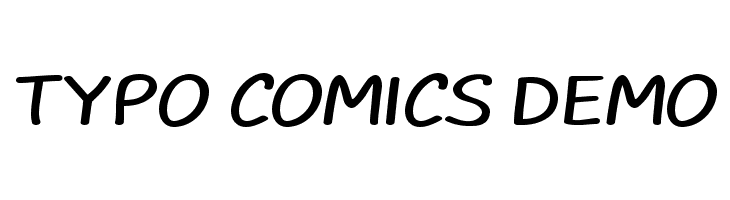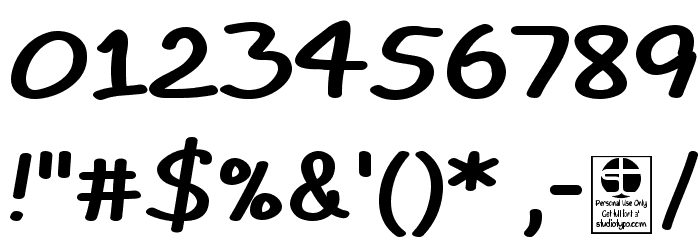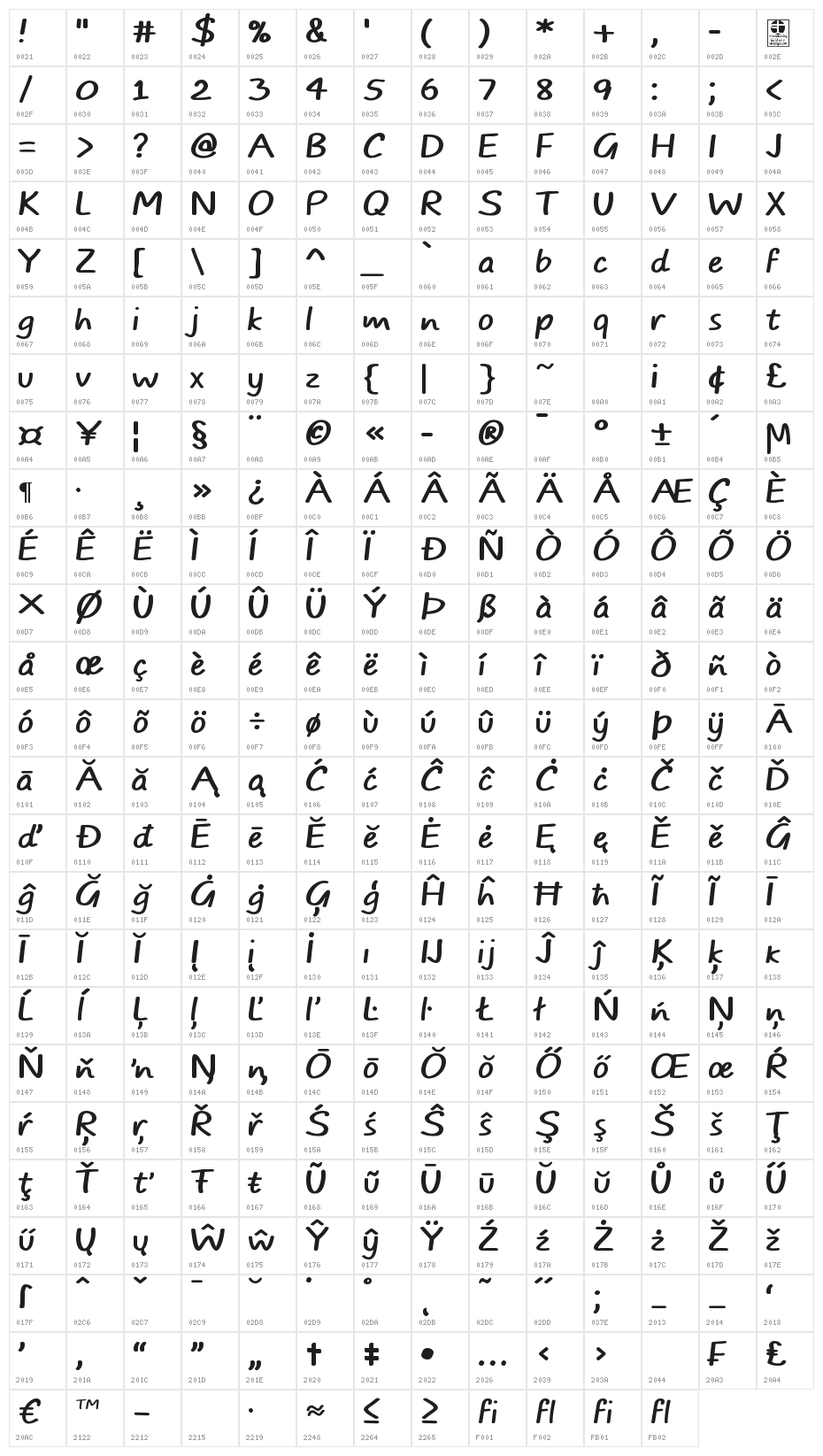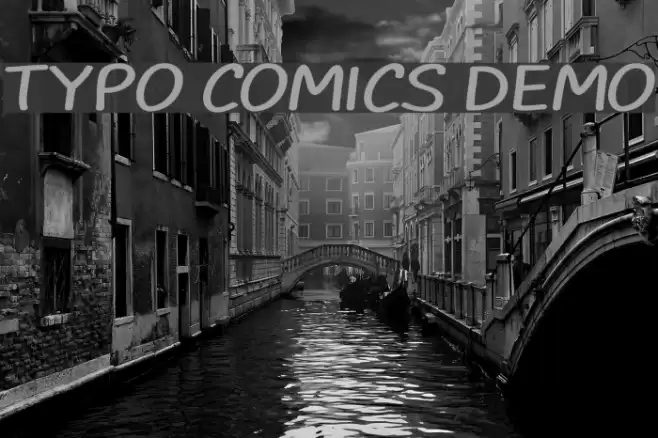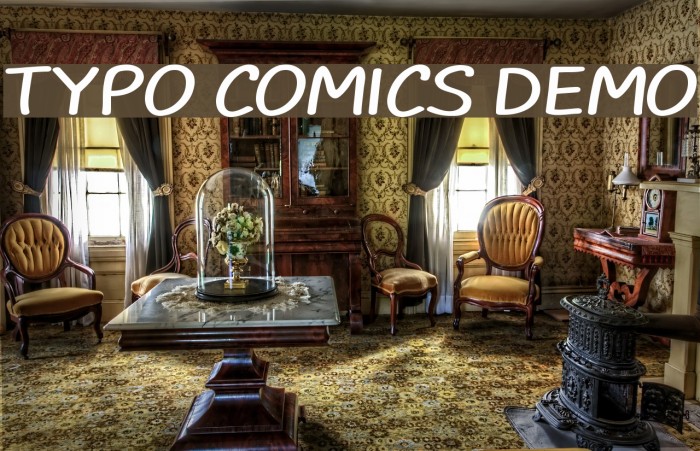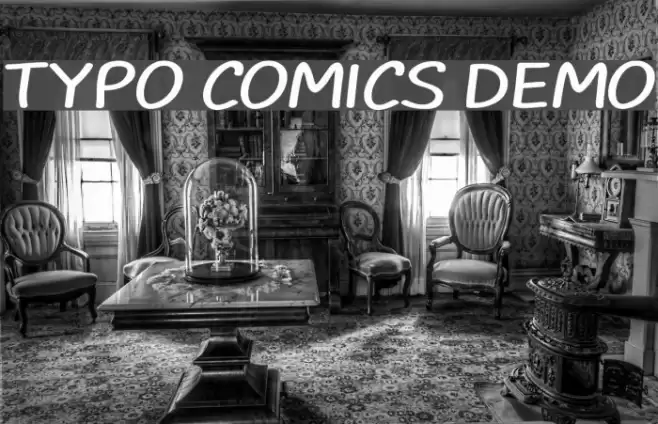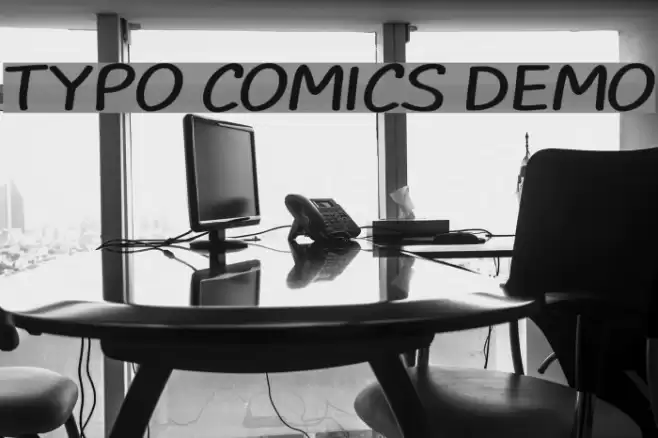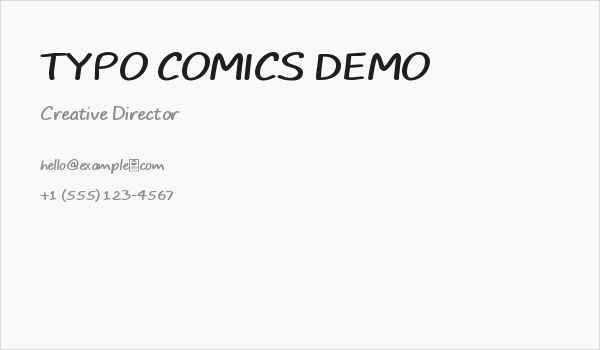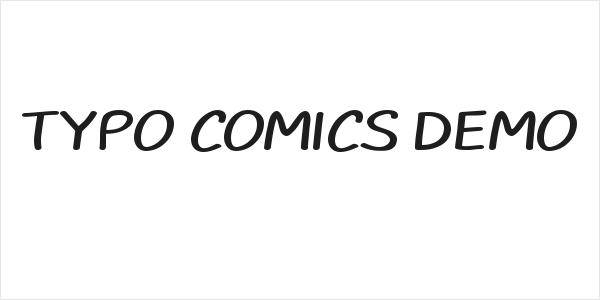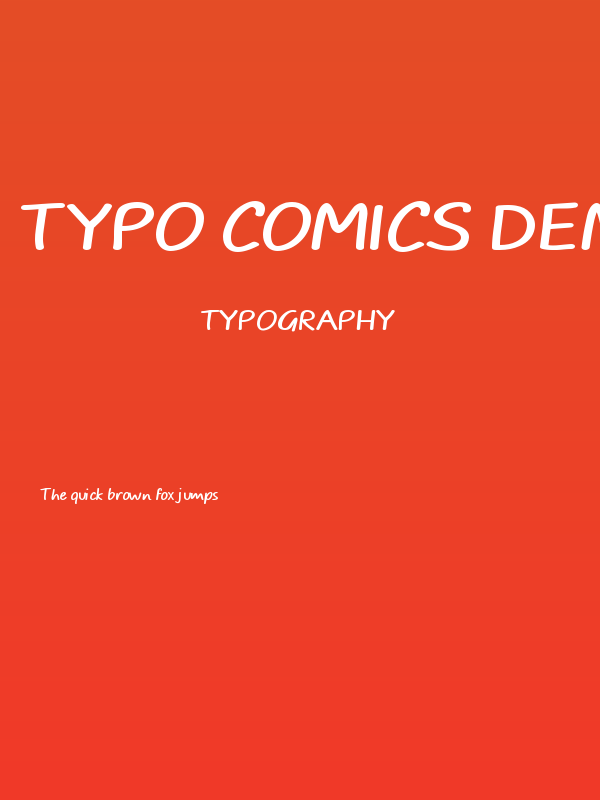
TYPO COMICS DEMO Font
This playful and informal font features a handwritten style with smooth, rounded edges and a casual flow. The uppercase and lowercase letters maintain a consistent rhythm, giving it a friendly and approachable appearance. The numerals are clear and easy to read, matching the overall style of the alphabet. Special characters are included, maintaining the same whimsical feel. This font is perfect for projects that require a fun and light-hearted touch, such as comics, children's books, or playful branding.
| Proposed Projects | Ideal for comics, children's books, playful branding, and informal invitations. |